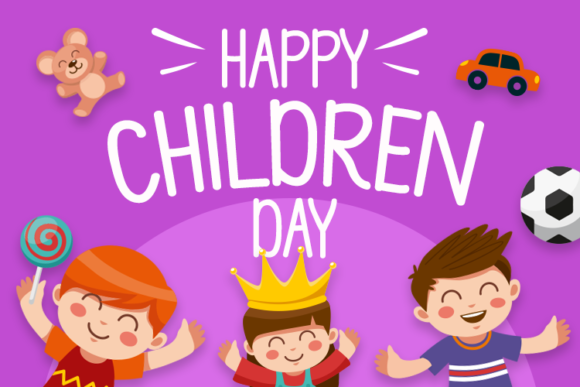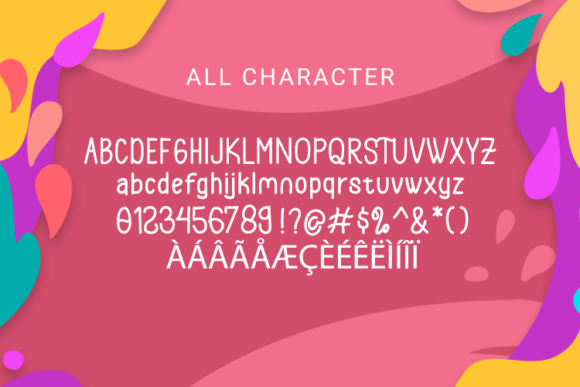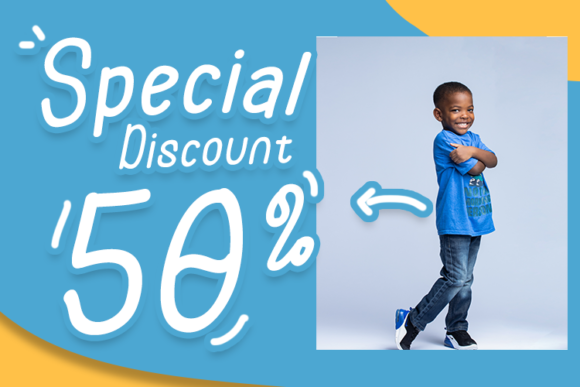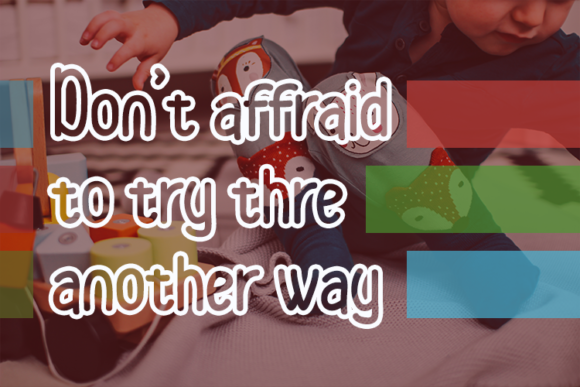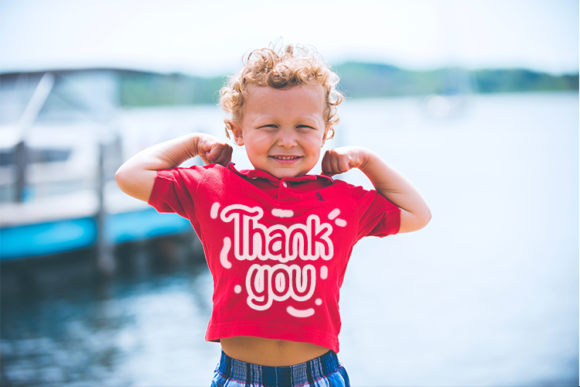
Rajwani Font
About Rajwani Font
Rajwani is a fun handwritten font. It features a charming and unique styles that will take your designs to the next level!